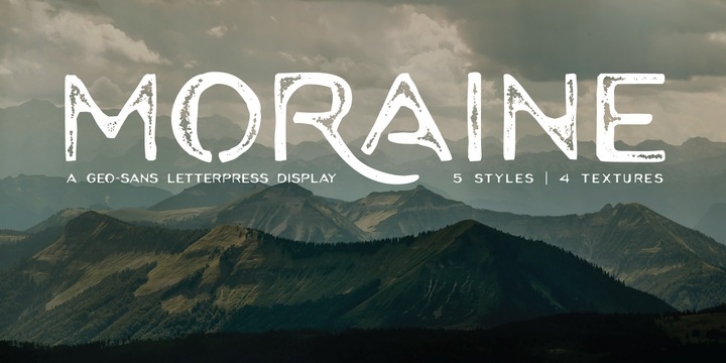
Inspired by the Pacific Northwest, Moraine is a geo-sans display crafted with two things in mind - legibility and texture. Imperfect outlines give Moraine a hand drawn feel, but the geometric letterforms retain legibility at smaller sizes. Moraine is peppered with various textures to give the user options for look and feel. One font may have a wood type or letterpress feel, while the next my have a linen or denim personality. Opentype features include double-letter ligatures for an organic and realistic hand drawn appearance. Moraine is a small caps typeface, and both upper and lowercase have alternates. With a long list of language support, Moraine is a great legible display family perfect for pairing with a script or a rustic logo. I like to describe the family as a 'legible vintage geo-sans'.